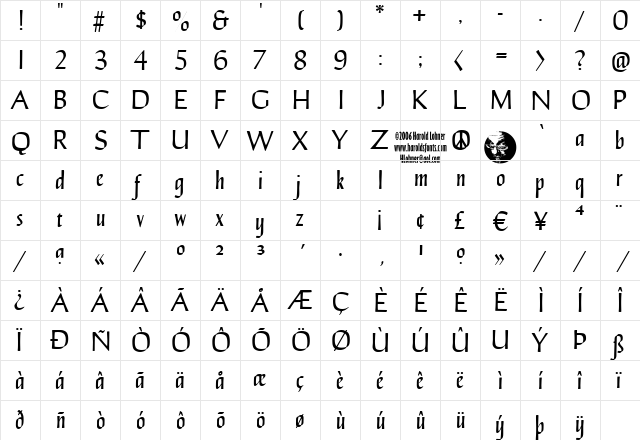
Lapis Lazuli Regular
Design Context for Lapis Lazuli Typeface
Lapis Lazuli takes a measured approach to typography — its balanced proportions and neutral character make it a reliable workhorse for both digital and print work.